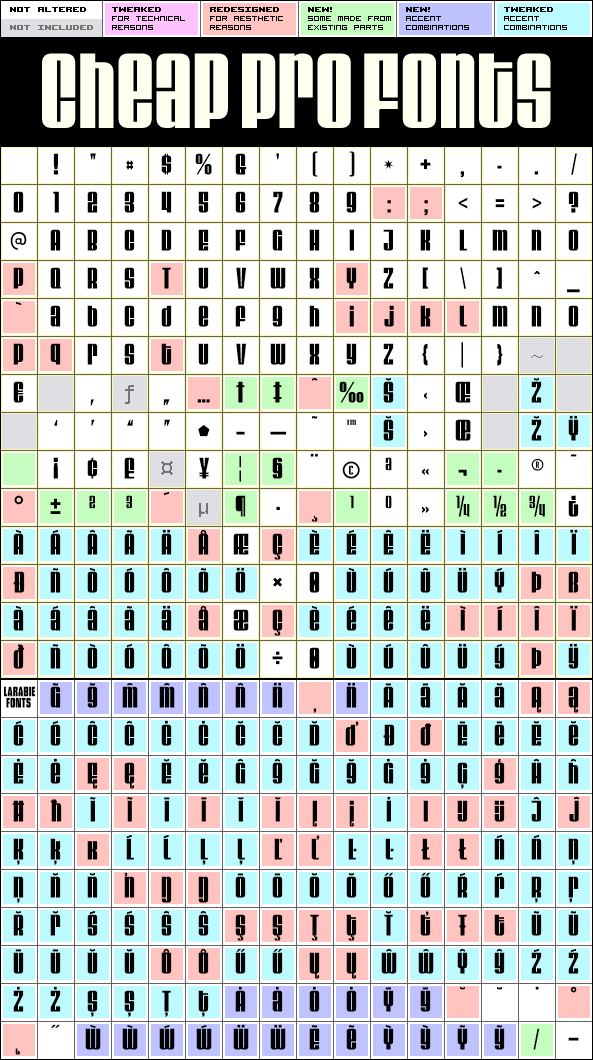
Very tight and very black font where (almost ;) all letters have the same height. The original font had a good glyph-set, but some bad diacritics. I have also redesigned some glyphs, and added some kerning - not much was needed for this compact design, though... ;) Ray Larabie says: "Ultra-heavy condensed display type. 1960’s style, and inspired by a Sixties font called “Stark”. Comes in three styles: “Velvenda Cooler” was created in 2002 and has thicker counters for use in smaller print."
Velvenda Cooler Pro is a professionally reworked font that contains an extended character set for setting text in 65 languages requiring more than the basic A-Z!